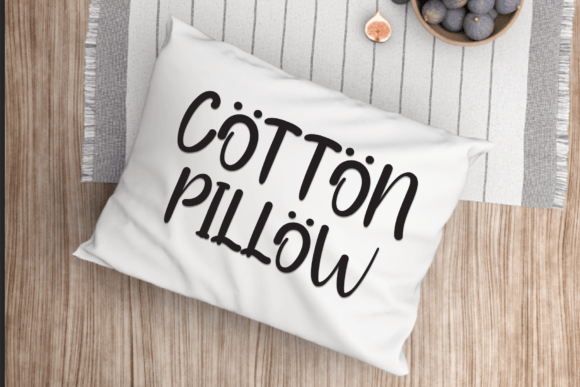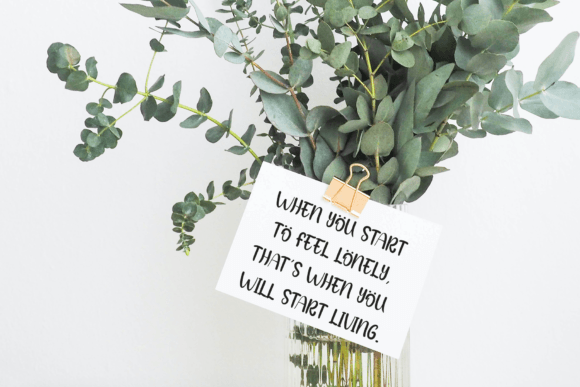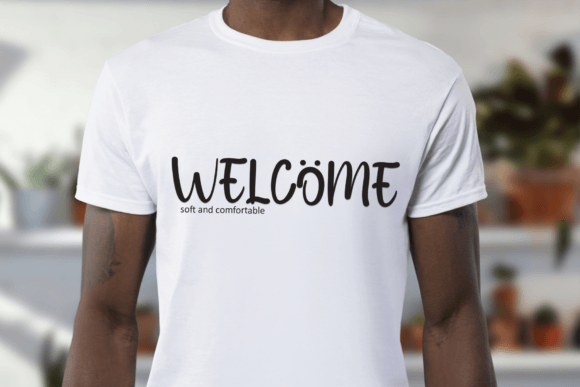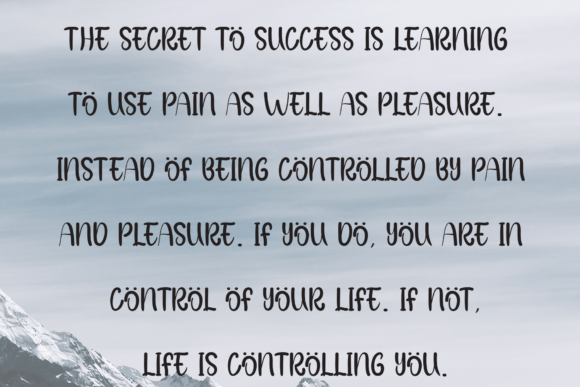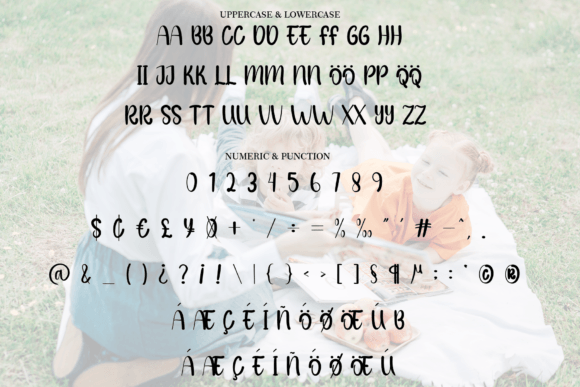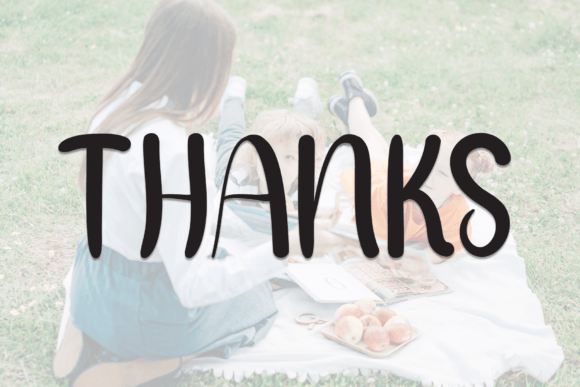
Cute Picnic Font: Add a Touch of Whimsy to Your Designs
Are you looking for a font that can add a playful and charming touch to your designs? Look no further than Cute Picnic, a sweet and friendly handwritten font that’s perfect for creating fun and eye-catching projects. In this article, we’ll take a closer look at Cute Picnic and explore its features, uses, and benefits for designers and crafters.
What is Cute Picnic Font?
Cute Picnic is a beautiful, handwritten font that’s designed to bring a sense of freshness and cuteness to your designs. With its smooth and flowing lines, this font is ideal for creating a wide range of projects, from wedding invitations and cards to social media graphics and craft projects.
Key Features of Cute Picnic Font
- Handwritten style: Cute Picnic has a lovely, handwritten feel that’s perfect for adding a personal touch to your designs.
- Sweet and friendly: This font has a warm and approachable vibe that’s sure to delight your audience.
- Fresh and cute: Cute Picnic is designed to be fresh and playful, making it perfect for projects that require a fun and youthful touch.
- Easy to read: Despite its playful style, Cute Picnic is easy to read and understand, making it perfect for use in a wide range of projects.
Uses for Cute Picnic Font
Cute Picnic is a versatile font that can be used in a wide range of projects, including:
- Wedding invitations: Add a touch of romance and whimsy to your wedding invitations with Cute Picnic.
- Cards and stationery: Use Cute Picnic to create beautiful and playful cards and stationery for any occasion.
- Social media graphics: Add a fun and playful touch to your social media graphics with Cute Picnic.
- Craft projects: Use Cute Picnic to add a personal touch to your craft projects, such as scrapbooking and DIY signs.
Benefits of Using Cute Picnic Font
There are many benefits to using Cute Picnic in your designs, including:
- Unique and eye-catching: Cute Picnic is a unique and eye-catching font that’s sure to stand out in a crowd.
- Versatile: Cute Picnic can be used in a wide range of projects, from digital designs to print projects.
- Fun and playful: This font is perfect for adding a fun and playful touch to your designs.
Tips for Using Cute Picnic Font
Here are a few tips for using Cute Picnic in your designs:
- Pair with other fonts: Cute Picnic looks great when paired with other fonts, such as bold and sans-serif fonts.
- Use in combination with images: This font looks great when used in combination with images, such as illustrations and photographs.
- Experiment with colors: Cute Picnic looks great in a wide range of colors, so don’t be afraid to experiment and find the perfect color for your design.
Cute Picnic is a sweet and friendly handwritten font that’s perfect for adding a touch of whimsy to your designs. With its fresh and playful style, this font is ideal for creating a wide range of projects, from wedding invitations and cards to social media graphics and craft projects. Whether you’re a designer or crafter, Cute Picnic is a great choice for anyone looking to add a fun and playful touch to their designs.